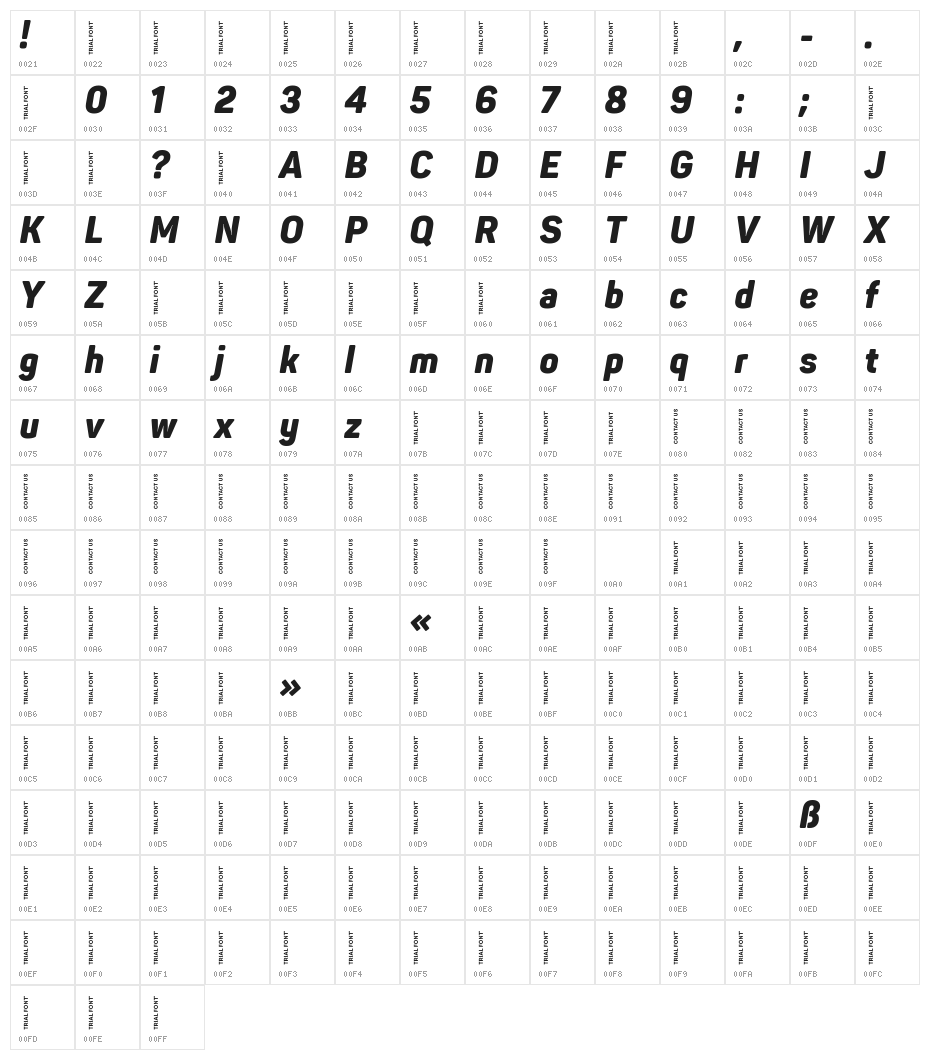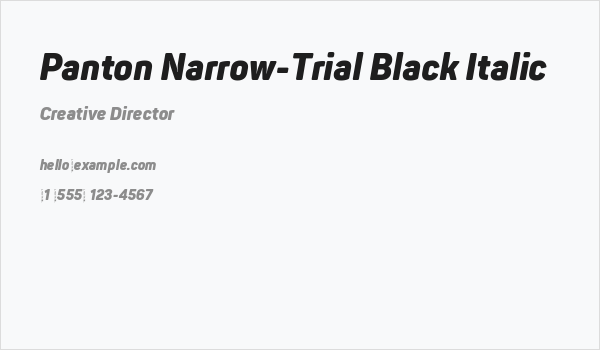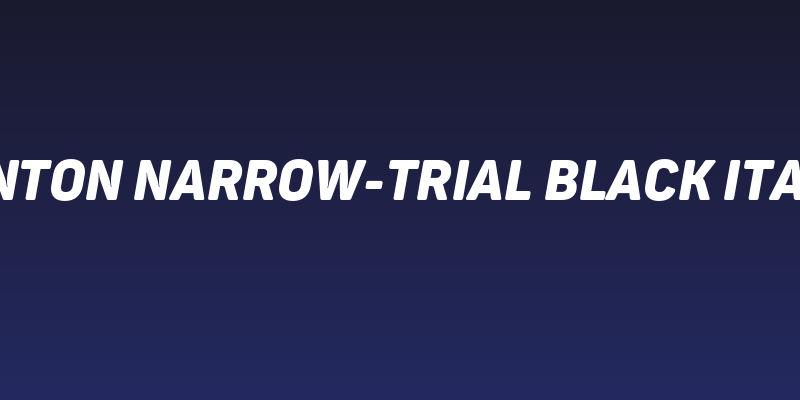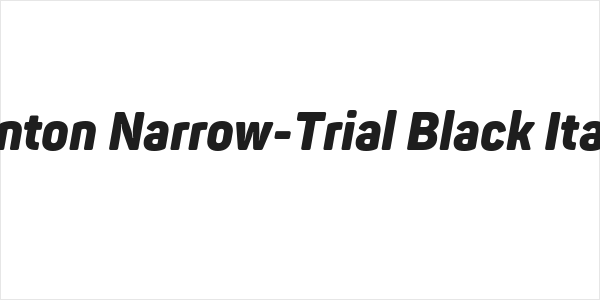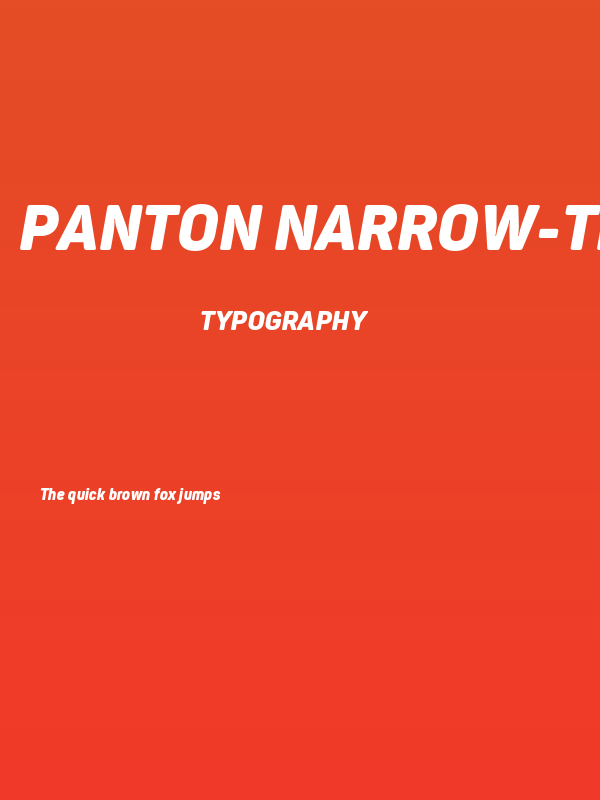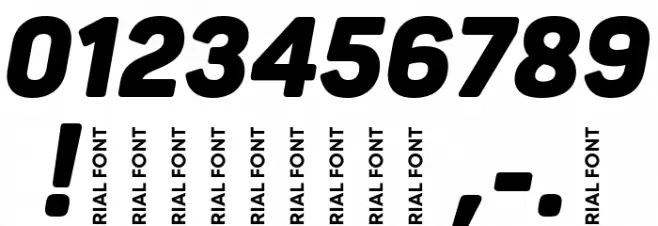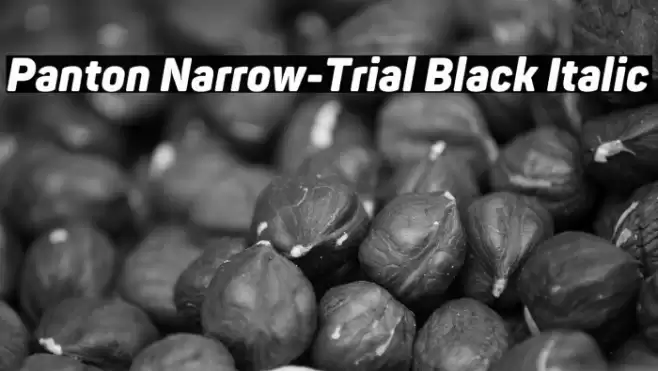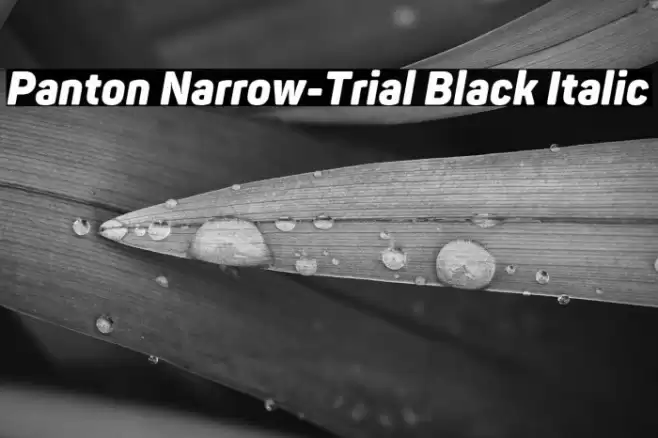
Panton Narrow-Trial Black Italic Font
Panton Narrow-Trial Black Italic Description
This font features a bold and italicized style with a narrow width, giving it a modern and dynamic appearance. The characters are slightly condensed, enhancing the compact and sleek look. The strokes are thick, providing a strong visual impact, while the italic slant adds a sense of motion and fluidity. The overall design is clean and contemporary, making it suitable for various applications where a bold statement is needed. The numbers and special characters maintain the same stylistic features, ensuring consistency across all elements.
| Proposed Projects | Ideal for branding, advertising, headlines, and posters where a strong and modern impression is desired. |